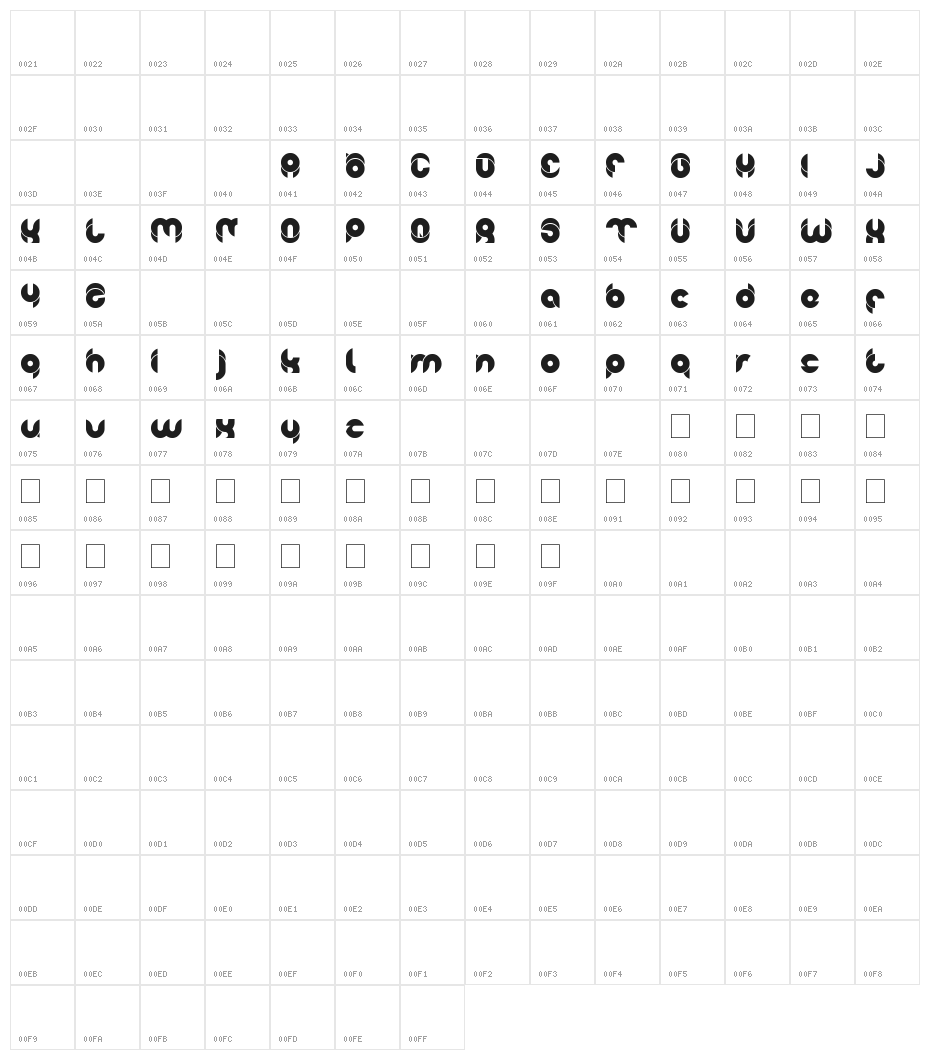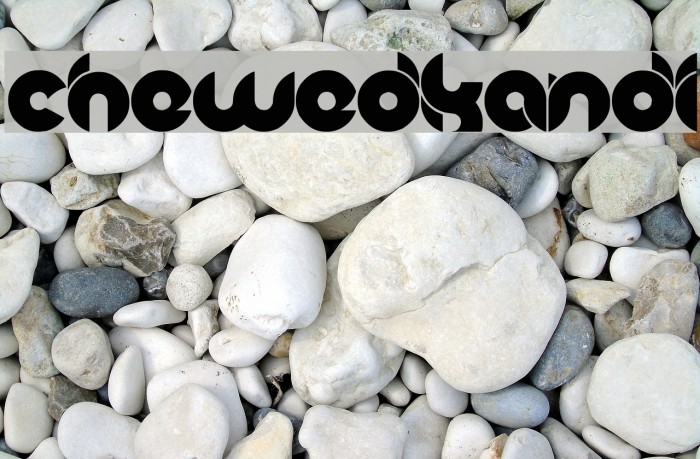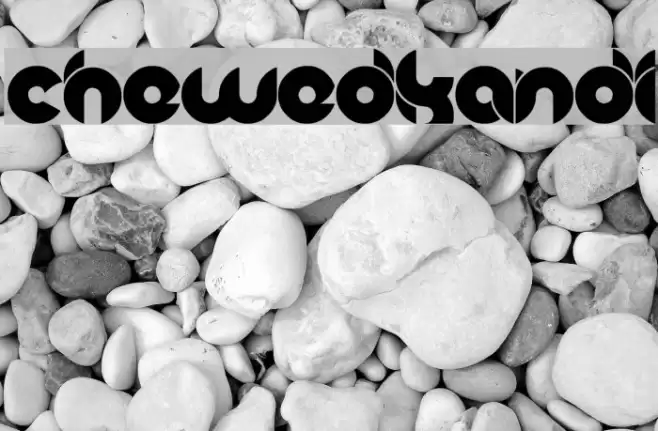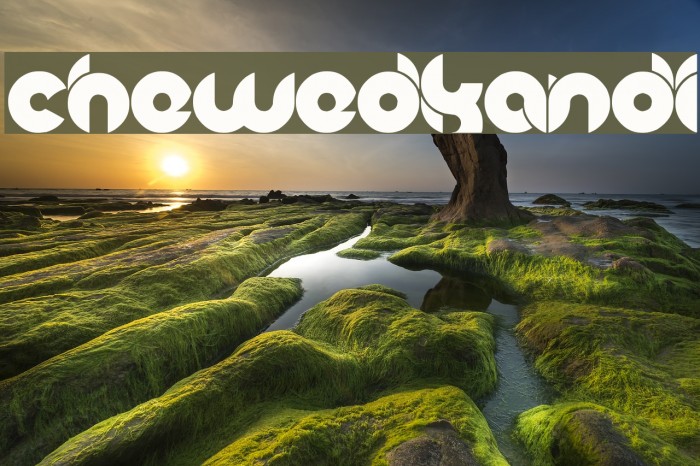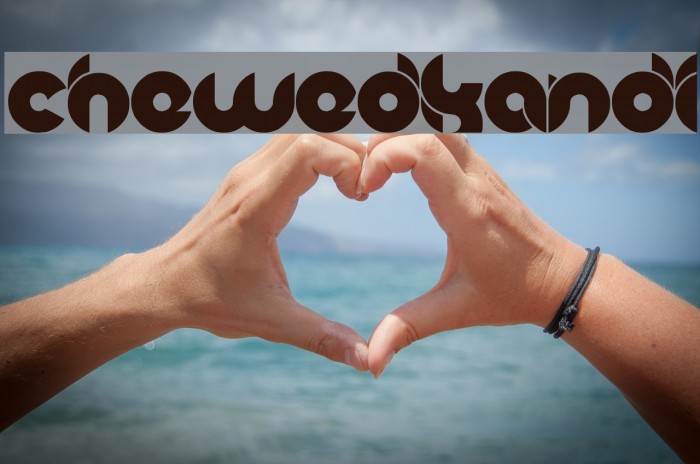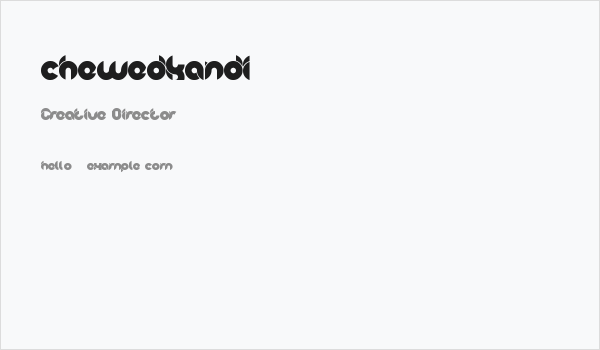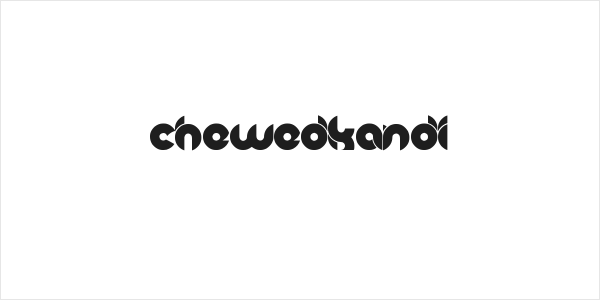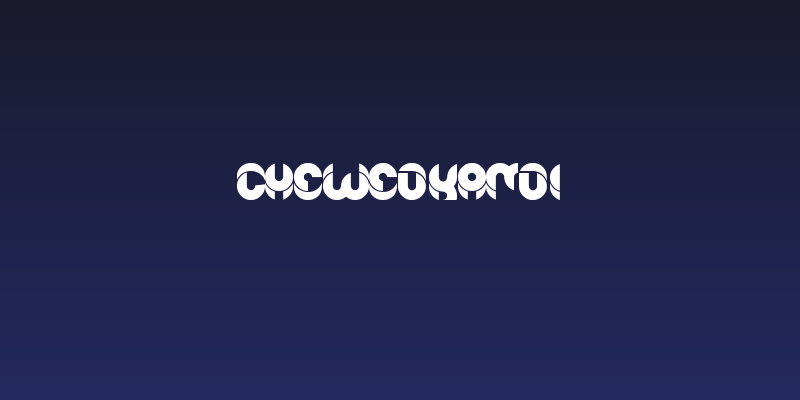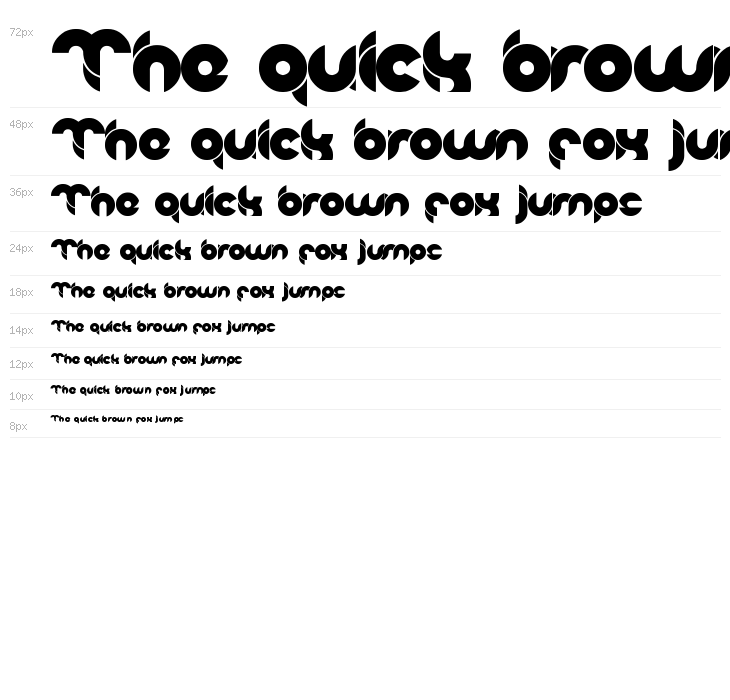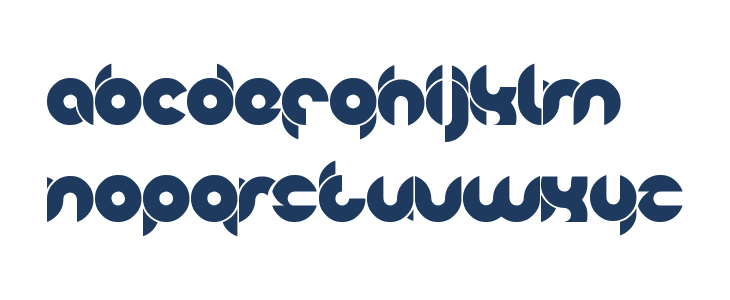
chewedkandi Font
chewedkandi Description
This font features a bold, geometric design with a futuristic flair. Each character is crafted with a series of circular and semi-circular shapes, creating a unique and eye-catching appearance. The letters are constructed with a consistent thickness, giving the font a uniform and cohesive look. The style is highly decorative, making it ideal for projects that require a strong visual impact. The characters are tightly spaced, enhancing the compact and modern aesthetic. This font is perfect for creative and innovative designs, where a bold statement is desired.
| Overall Style | Futuristic, Decorative |
| Use Case | Logos, Posters, Album Covers |
| Proposed Projects | Ideal for logos, posters, album covers, and any project needing a striking visual element. |